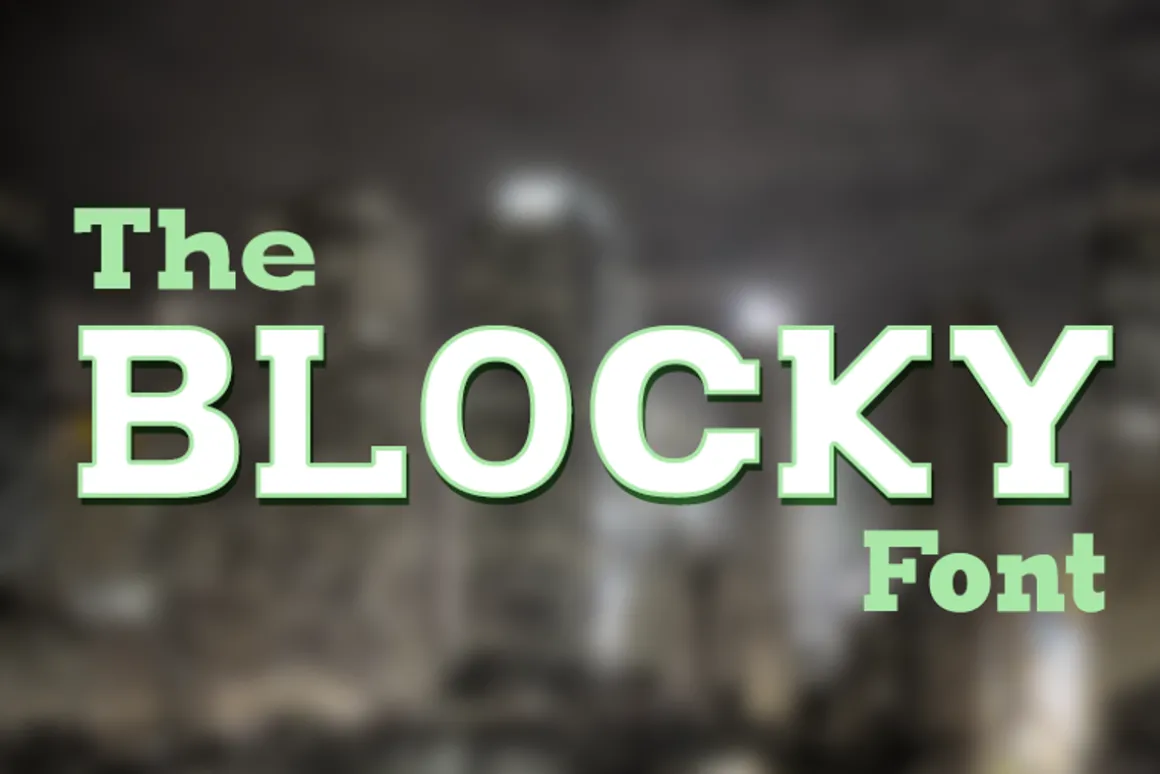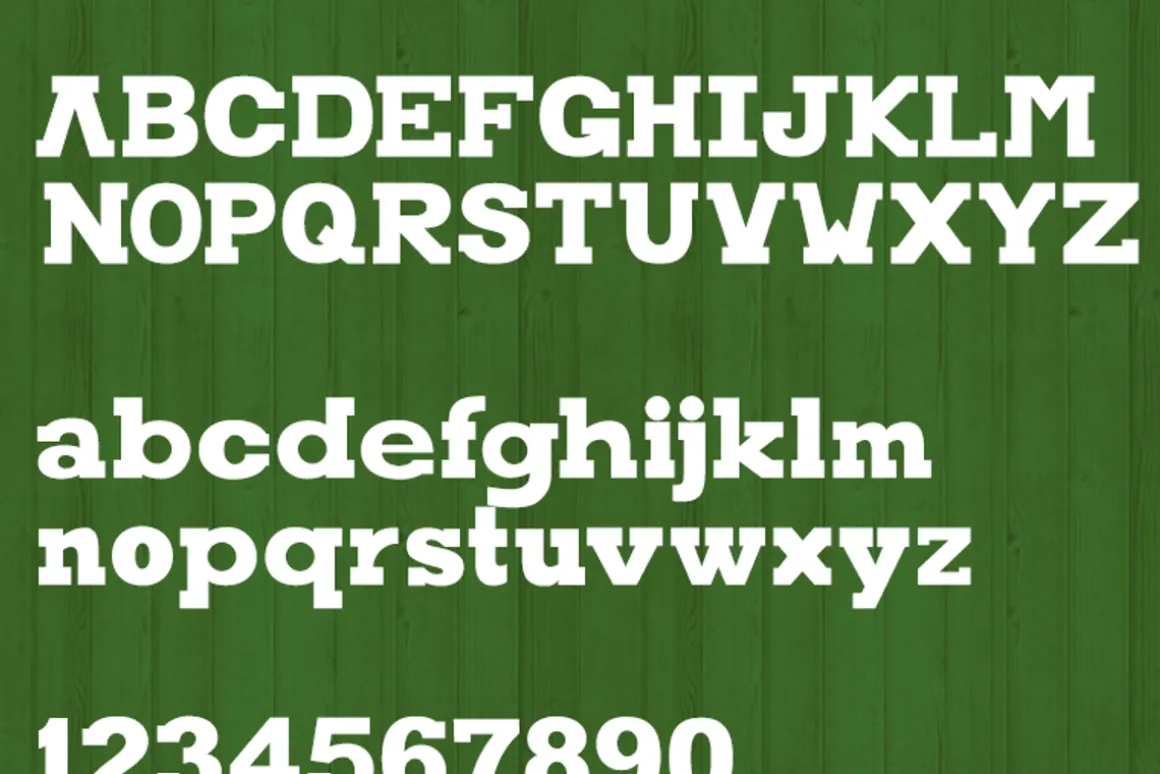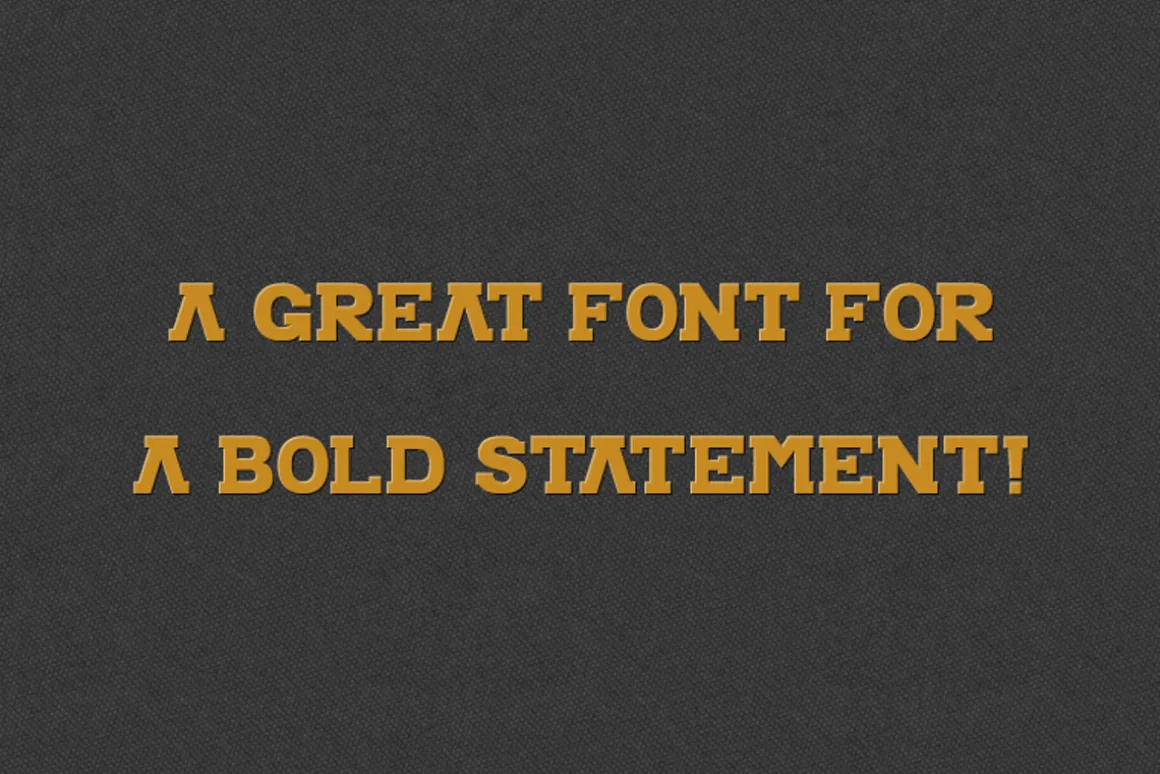
Blocky Font is a large slab serif font that has a playful and chunky feel to it. Although designed to be used primarily as an all caps font I have included a lowercase set if the situation requires it. Great for headings and anything that needs to stand out and make a statement. This is a bold only font and is very large by nature giving you the ability to still read clearly even at the lowest of font sizes.